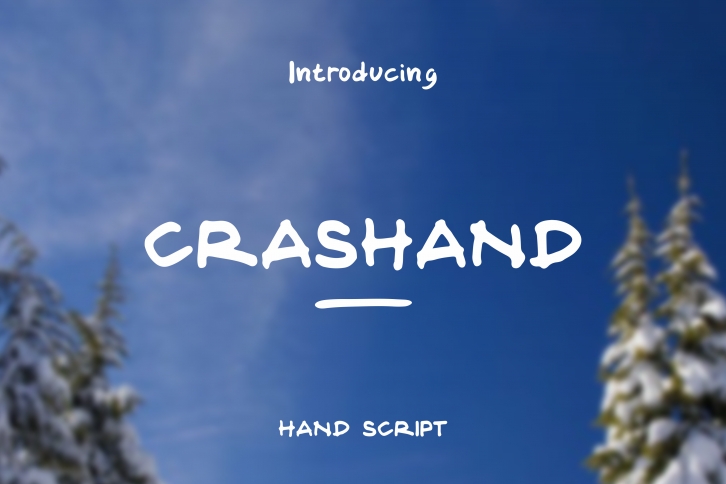
Crashand Font Download
Crashand is a trendy and unique font with an authentic style. It was designed by Bangun Studio and it's a great choice for creative people who need such a font. It was released on February 4, 2018 and the file size is 15.12 MB. Crashand will add an organic vibe to any design idea!